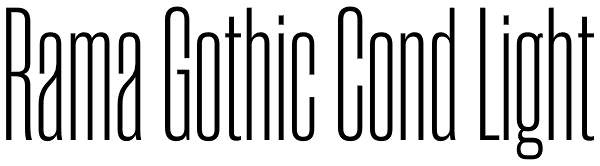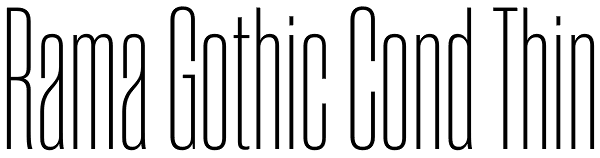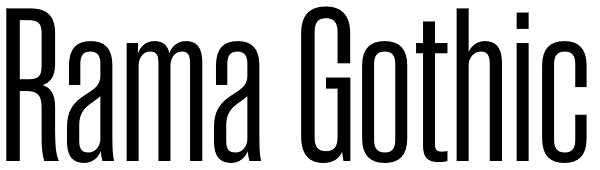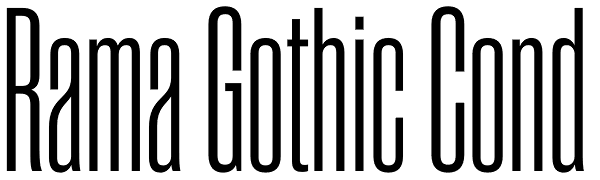
Rama Gothic
Rama Gothic is an antiqued sans serif, the design inspired by 1800s-style wood type. All glyphs have been designed carefully to be retro-looking of the old time and to fill all with nostalgia. This condensed font family with 18 styles will be the...